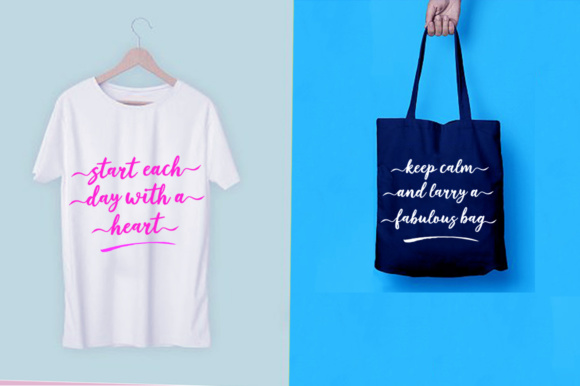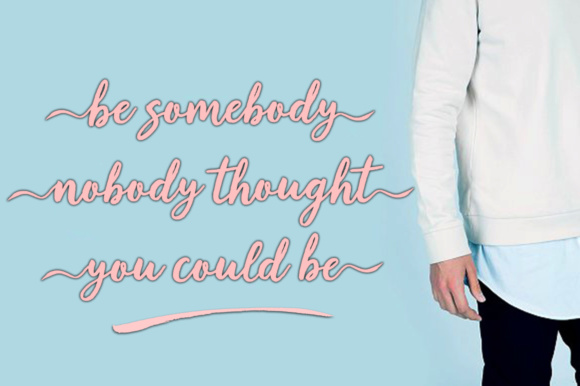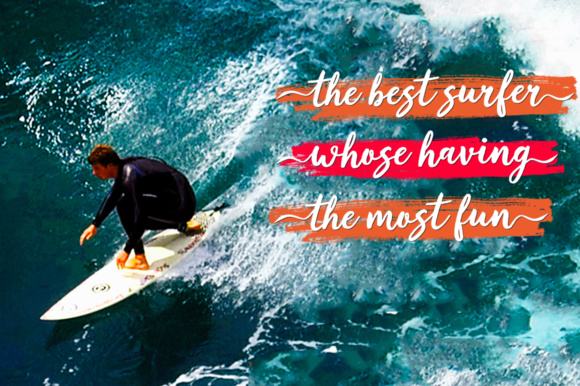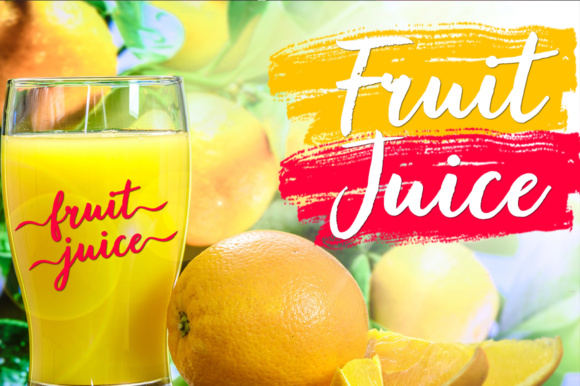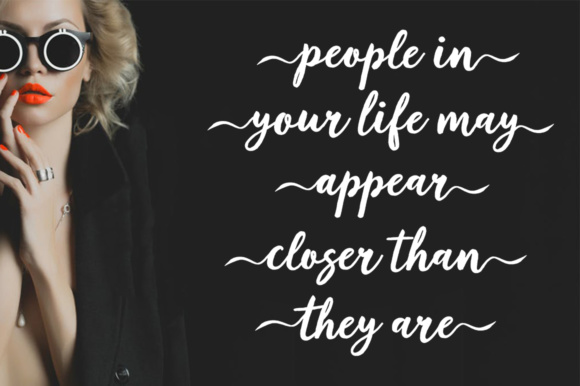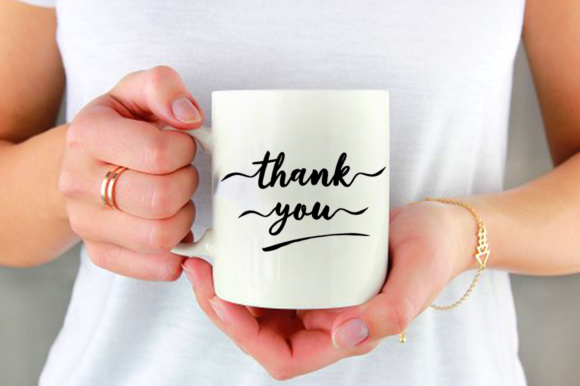
The Birth of a Beautiful Script
Remember the moment when you stumbled upon that perfect handwritten font that elevated your design from good to great? For designers, this feeling is a familiar one, and it’s exactly what the Brushello Font aims to evoke. With its textured brush feel and organic charm, this font is perfect for adding a touch of handmade whimsy to your projects.
The Brushello Font offers a unique blend of natural, irregular lines and contemporary flair, making it an ideal choice for designers seeking to add a personal touch to their work. Its extensive library of ligatures and swashes also provides endless possibilities for creative expression. Whether you’re a graphic designer, illustrator, or typographer, the Brushello Font is sure to become a trusted companion in your creative journey.
Key Features of Brushello Font
• Font Family: Brushello is a script font, ideal for creating elegant and sophisticated designs.
• Unique Characteristics: Brushello features a unique blend of handwritten and calligraphic elements, giving it a distinctive and artistic touch.
Designer Review: Brushello Font
Overall, I think Brushello Font has some great qualities that make it a solid addition to any design project. ✨ The font’s unique, handwritten feel gives it a personal touch that can add a lot of character to text-based designs. ✨ The variety of font styles and weights available also makes it easy to customize and adapt to different design needs.
One of the things I appreciate about Brushello Font is its versatility. ✨ It works well for everything from title text to body copy, and its cursive feel makes it perfect for creative projects like invitations, menus, and more. ✨ I also appreciate the font’s OpenType features, which allow for some really cool effects and ligatures.
• ⚠️ Limited font sizes: While the font is available in a range of weights and styles, the font sizes are somewhat limited, which can make it difficult to use in certain design contexts.
• ⚠️ Not suitable for all audiences: The handwritten feel of the font may not be suitable for all audiences, particularly those who prefer more traditional or formal typography.
Overall, I think Brushello Font is a great choice for designers looking for a unique, handwritten font. While it may have some limitations, its versatility and OpenType features make it a solid addition to any design project.
Getting the Most Out of Brushello Font
Use Brushello Font for creative, handwritten designs, such as invitations, quotes, and social media graphics.
Experiment with different font sizes and colors to create visually appealing designs.
Combine Brushello Font with other fonts and design elements to add texture and interest to your designs.
Brushello Font is perfect for:
Handwritten quotes and sayings
Invitations and event graphics
Social media graphics and posts
Personalized stationery and greeting cards
Alternatives to Brushello Font
Great Vibes Font is a beautiful, elegant script font ideal for titles, quotes, and other design elements that require a touch of sophistication. It’s perfect for wedding invitations, branding, and advertising materials. Great Vibes Font is more refined and cursive compared to Brushello Font, making it suitable for formal and high-end designs.
Amarante Font
Amarante Font is a whimsical, handwritten font that’s great for creating a friendly and approachable atmosphere. It’s perfect for blog posts, social media, and other content that requires a personal touch. Amarante Font has a more casual and playful feel compared to Brushello Font, making it suitable for informal and creative designs.